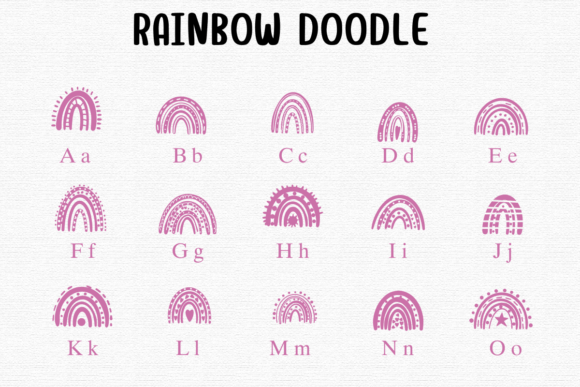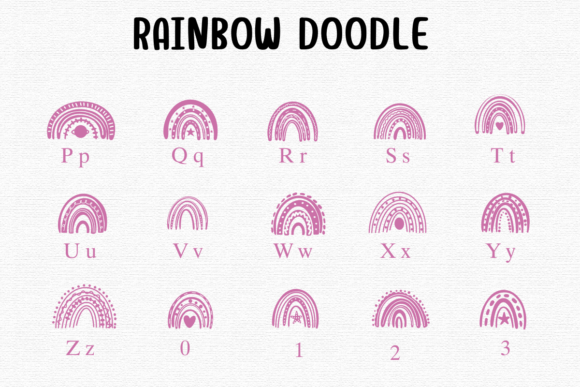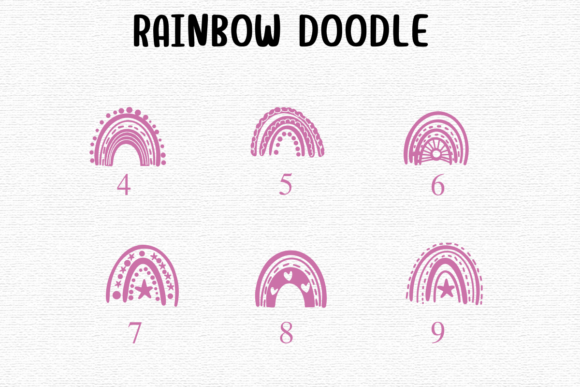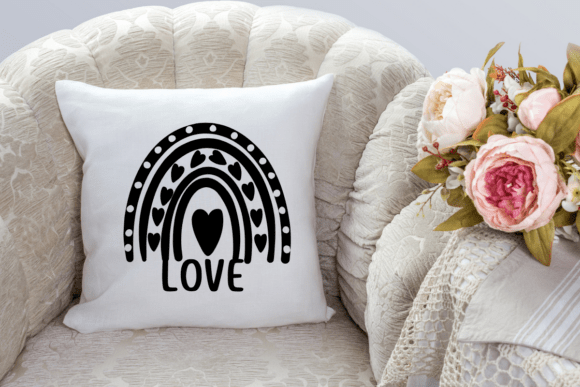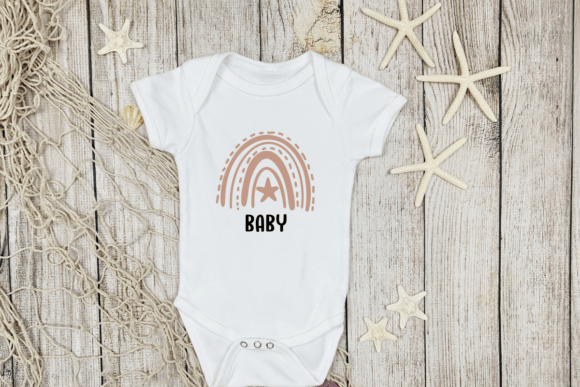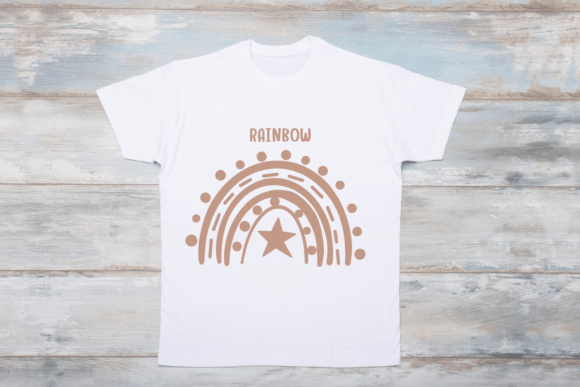
Introduction to Rainbow Doodle Font
Rainbow Doodle Dingbats Font is a cheerful and whimsical dingbat typeface packed with hand-drawn rainbow designs.
Each glyph delivers a playful doodle with hearts, stars, dots, and swirlsโideal for kidsโ projects, nursery decor, baby shower designs, and cute printable crafts .